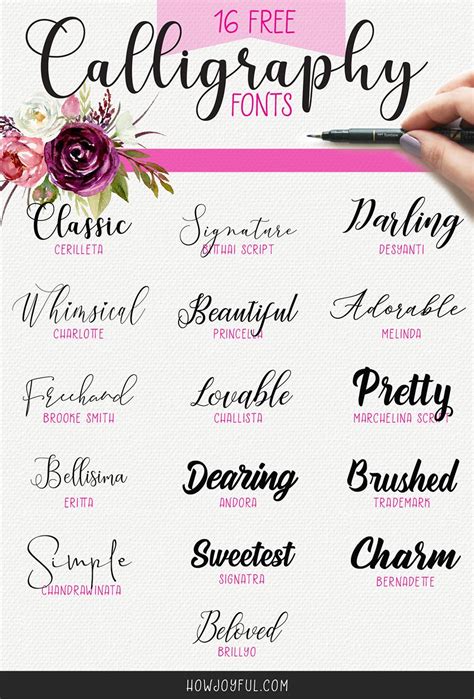
Fancy Up Your Procreate Art with Free Calligraphy Fonts
Are you tired of your Procreate drawings lacking pizzazz? Do you want to add a touch of elegance to your digital art? Well, fancy up your Procreate art with free calligraphy fonts!
Did you know that calligraphy has been around for centuries and is considered a form of art on its own? By incorporating calligraphy fonts into your Procreate art, you can enhance your work and make it stand out from the crowd.
Using calligraphy fonts in your Procreate art will give it a unique and personalized touch. It can be used for anything from lettering to decorative elements.
No more boring digital art. No more plain lettering. Fancy up your Procreate art with free calligraphy fonts today!
You won't regret taking the time to incorporate calligraphy fonts into your Procreate art. It adds a level of sophistication and flair that will leave a lasting impression on viewers.
So what are you waiting for? Start exploring the world of calligraphy fonts and elevate your Procreate art to the next level.
Calligraphy is an art form that has been used for centuries to create stunning hand-lettered designs, invitations, and even entire books. With the advancement of technology, you no longer need to be a master calligrapher to create beautiful lettering designs. You can now use free calligraphy fonts in your Procreate artwork to instantly add a touch of elegance, personality, and style to your work. In this article, we will discuss some top free calligraphy fonts for Procreate and show you how to use them.
The Benefits of Calligraphy Fonts
There are many benefits to using calligraphy fonts in your Procreate artwork. Here are some reasons why:
- Instantly adds an elegant and unique touch to your artwork.
- Provides you with a wide range of hand-lettered options that you could not have produced on your own.
- Allows you to save time by not having to hand-letter everything yourself.
- Can help you refine your artistic style by experimenting with different fonts and styles.
- Gives a professional look to your final product.
The Best Free Calligraphy Fonts for Procreate
There are hundreds of free calligraphy fonts available out there, but not all of them are suitable for use in Procreate. Here are five of the best free calligraphy fonts for Procreate:
| Name of the Font | Type of Font | Best Use | Download Link |
|---|---|---|---|
| Jenna Sue | Classic Calligraphy Script | Invitations, Logos, Branding, Typography designs | https://www.fontsquirrel.com/fonts/jenna-sue |
| Joshico | Modern Calligraphy Script | Wedding invitations, Social Media designs, Signatures, Logos | https://www.dafont.com/joshico.font |
| Aquatico | Thin Calligraphy Font | Title Pages, Magazine Designs, Product Labels | http://www.uifonts.com/download/aquatico/36066.html |
| Lauren | Brush Calligraphy Script | Bohemian designs, Quotes, Graphics, Social Media Designs | https://befonts.com/lauren-script-font.html |
| Wisdom Script | Hand-Lettered Calligraphy Font | Branding, Logos, Packaging, Posters, Headers and Titles | https://fonts.adobe.com/fonts/wisdom-script |
Using free calligraphy fonts is an effortless way to add style, personality, and elegance to your Procreate artwork. With the right combination of calligraphy font and brush, you can elevate any design project, branding design, packaging, book cover, or social media graphics. Try using these recommended calligraphy fonts for Procreate for maximum impact and productivity.